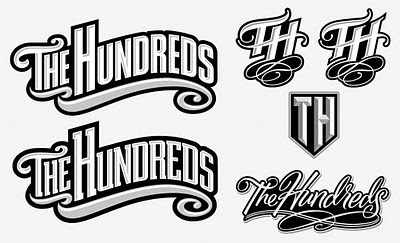
This was a really cool project to work on with the opportunity to draw a lot of concepts in addition to creating finished production lettering. A very good example to show what is involved when developing custom lettering from scratch.
Of all the concepts submitted a few of them were selected for final art.
The strongest of the finals, imho, is definitely the 2 full length marks on the left - a nice weight to both of them. Nice to see their final pick was the one I would have gone for too! :D